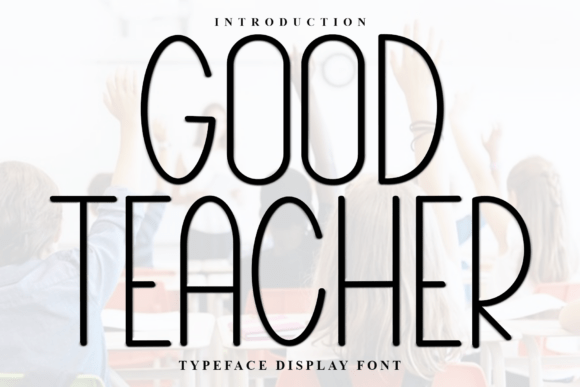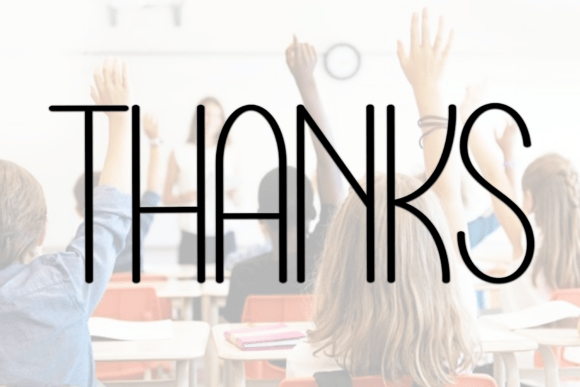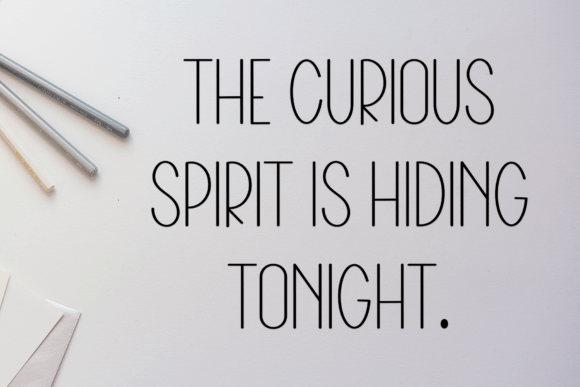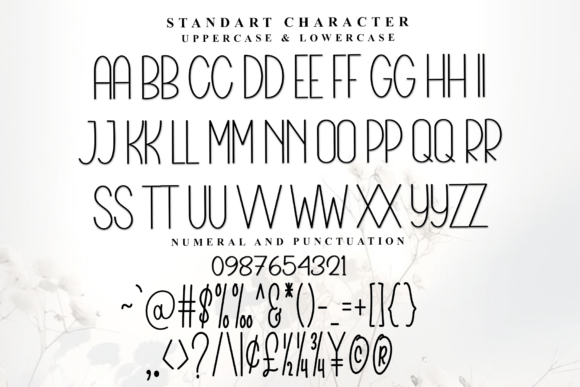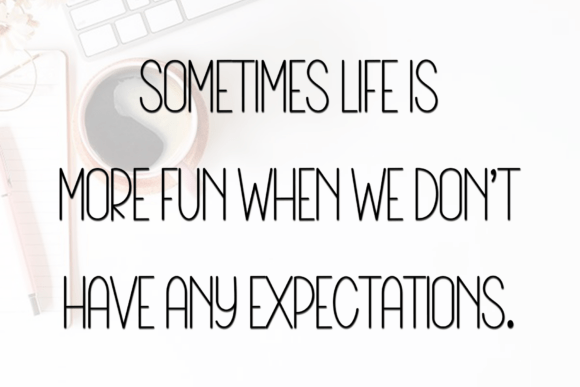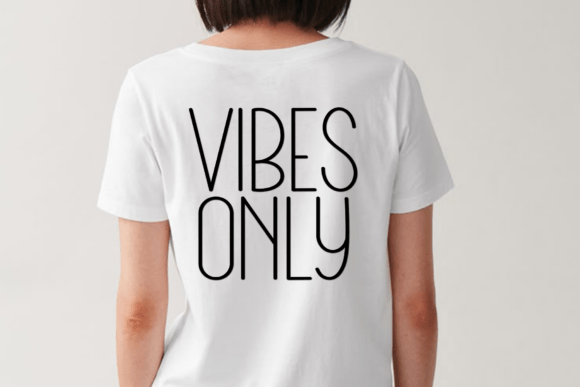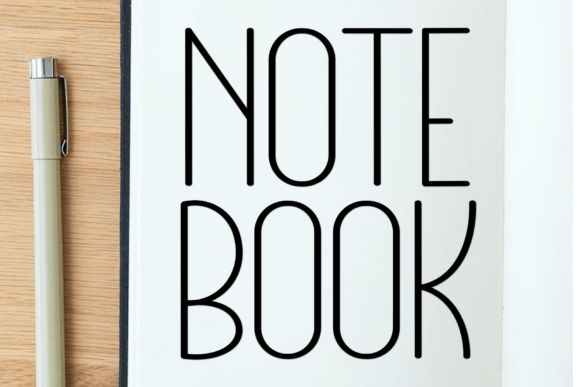
The Perfect Match for Your Creative Projects: Good Teacher Font
For those who are looking for a font that adds a touch of elegance and sophistication to their designs, Good Teacher Font is a beautiful and eye-catching choice. Designed with a soft, unique touch, this font features distinctive strokes that give it a special character, making it perfect for a wide range of creative projects. Whether you’re working on a design project, crafting a handmade card, or creating a digital graphic, Good Teacher Font is an excellent addition to your toolkit.
Good Teacher Font Key Features
- Font Family: Good Teacher is a modern sans-serif font family designed for educational purposes.
- Size Range: The font family includes 6 weights, from Light to Extra Bold, to cater to different design needs.
- Unique Characteristic: Good Teacher features a unique, child-friendly design that is both modern and approachable, making it ideal for educational materials and children’s books.
- Resolution: The font is optimized for on-screen use at resolutions up to 300 DPI, ensuring clear and crisp text display on various devices.
- Language Support: Good Teacher supports a wide range of languages, including Latin-based languages, Cyrillic, and Greek, making it a versatile choice for educational materials.
Good Teacher Font Review
I recently had the chance to work with the Good Teacher Font, and I wanted to share my honest thoughts with you. ✨ One of the things that immediately caught my eye was the font’s warm and inviting feel. It’s perfect for educational materials, as it evokes a sense of approachability and friendliness. The letterforms are clean and well-proportioned, making it easy to read even at smaller sizes.
- ✨ The Good Teacher Font is highly legible, making it suitable for body text.
- ✨ The font comes in a range of weights, from light to bold, giving you plenty of options for creating visual interest.
- ✨ The Good Teacher Font is highly customizable, allowing you to adjust the spacing, kerning, and other parameters to suit your design needs.
However, there are a few areas where the Good Teacher Font falls short. ⚠️ The font’s lack of italic and bold italic styles can make it difficult to create emphasis or add visual hierarchy to your text. Additionally, the font’s limited language support may be a concern for designers working on multilingual projects.
Overall, I think the Good Teacher Font is a solid choice for educational designs, but it may not be the best option for projects that require a wide range of font styles or languages.
For optimal results, use Good Teacher Font in headings and titles to create a clear hierarchy of information.
For best results, use Good Teacher Font in conjunction with other fonts to create a visually appealing and balanced design.
For maximum impact, use Good Teacher Font in titles and headings to create a clear and concise visual hierarchy.
Good Teacher Font is ideal for:
- Education and academic materials.
- Business and corporate communications.
- Marketing and advertising materials.
Remember to use Good Teacher Font in conjunction with other fonts and design elements to create a visually appealing and effective design.
Alternatives to Good Teacher Font
Playfair Display is a luxurious, high-end serif font ideal for creating elegant and sophisticated designs. It is perfect for use in high-end branding, luxury products, and special occasions. Playfair Display is more ornate and luxurious compared to Good Teacher Font, making it better suited for formal and high-end applications.